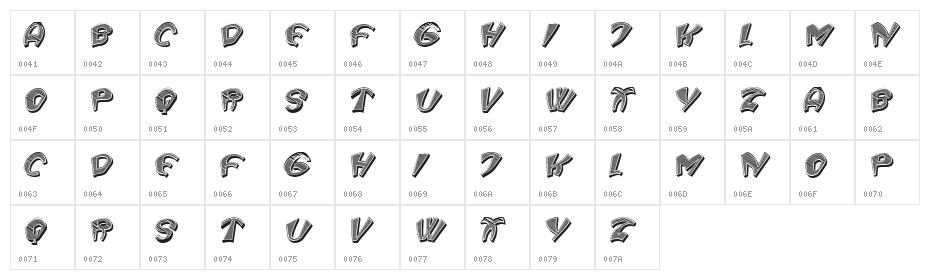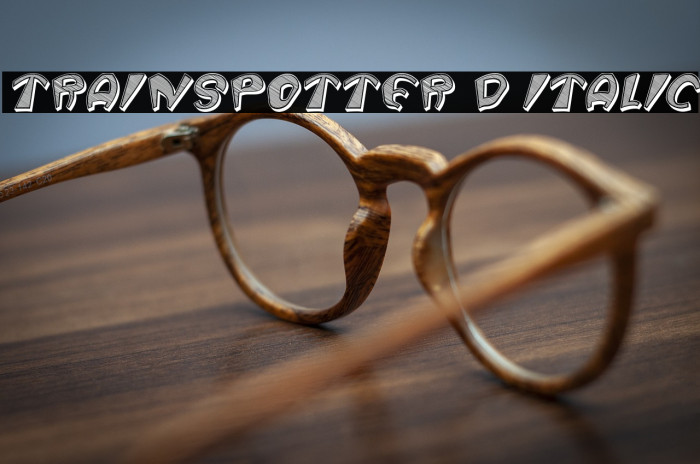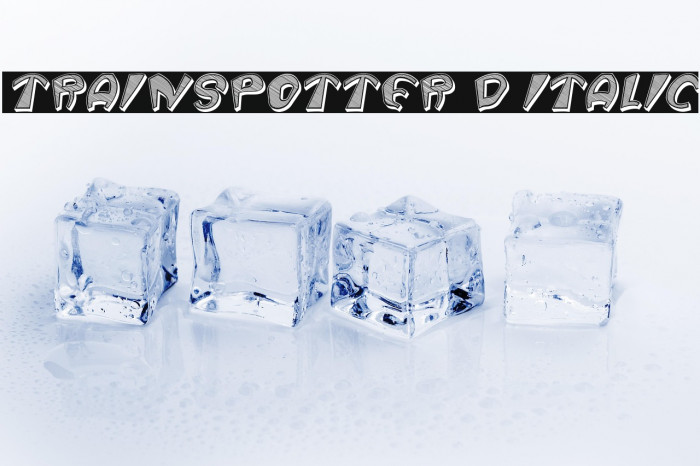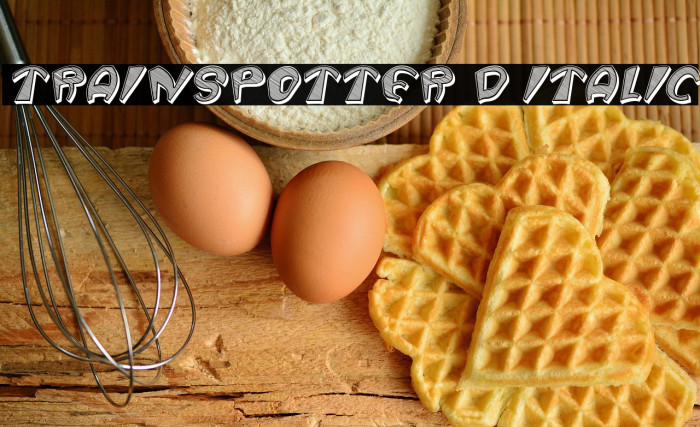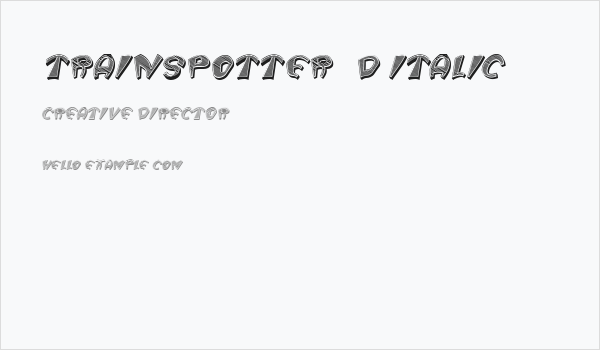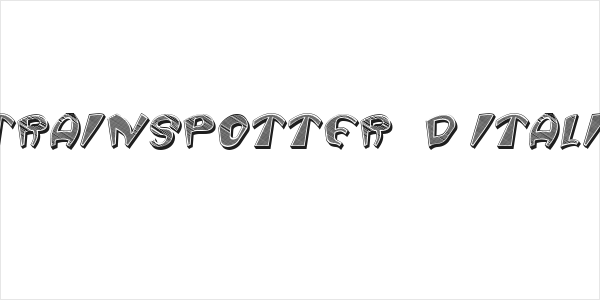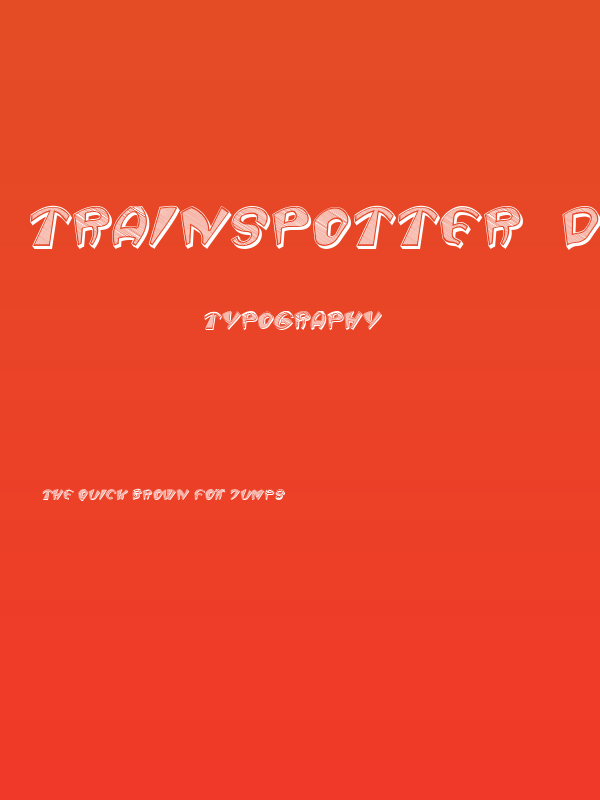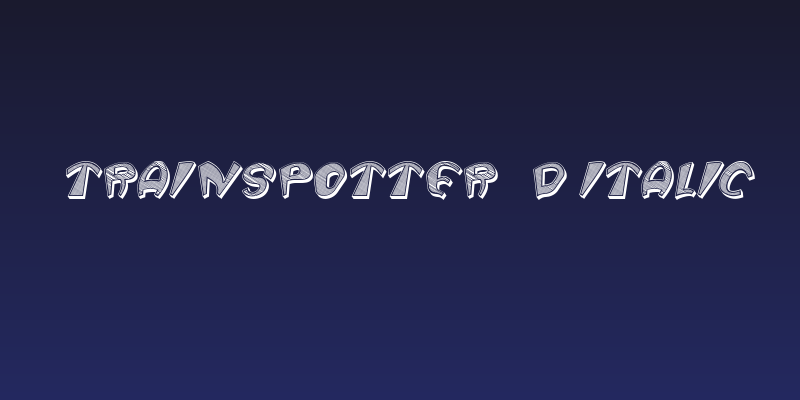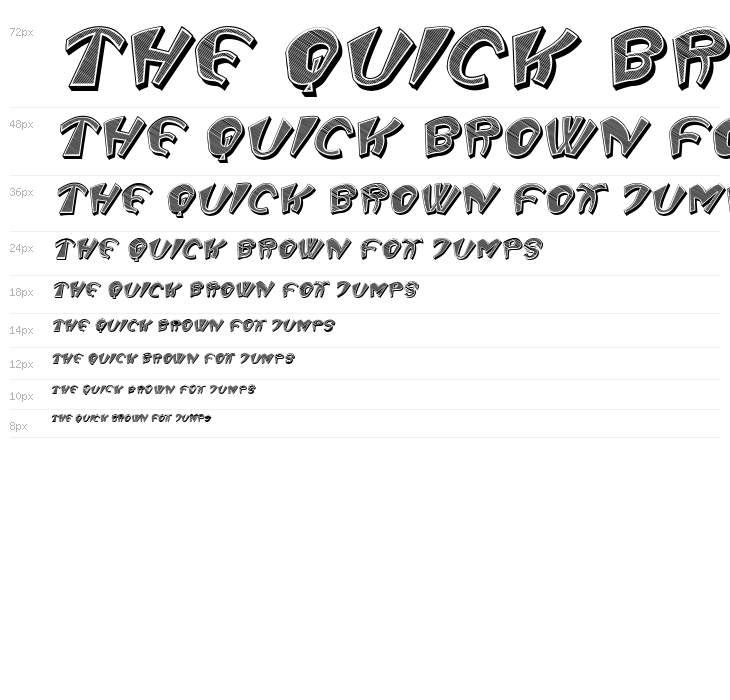
Trainspotter 3D Italic Font
Trainspotter 3D Italic Description
This font features a bold, three-dimensional design with a distinct italic slant, creating a dynamic and eye-catching appearance. Each character is outlined with a thick, shadowed border that enhances the 3D effect, giving the letters a sense of depth and movement. The interior of the characters is filled with a textured pattern, adding complexity and visual interest. The overall style is playful and modern, making it suitable for projects that require a bold statement. The font maintains consistent proportions across all characters, ensuring readability while still offering a unique aesthetic.